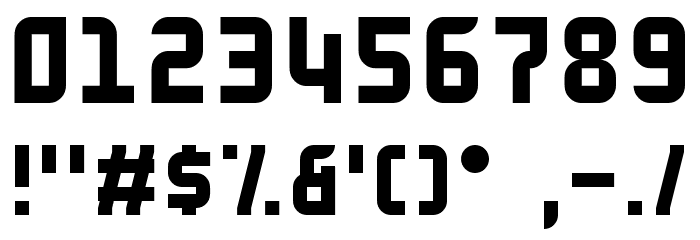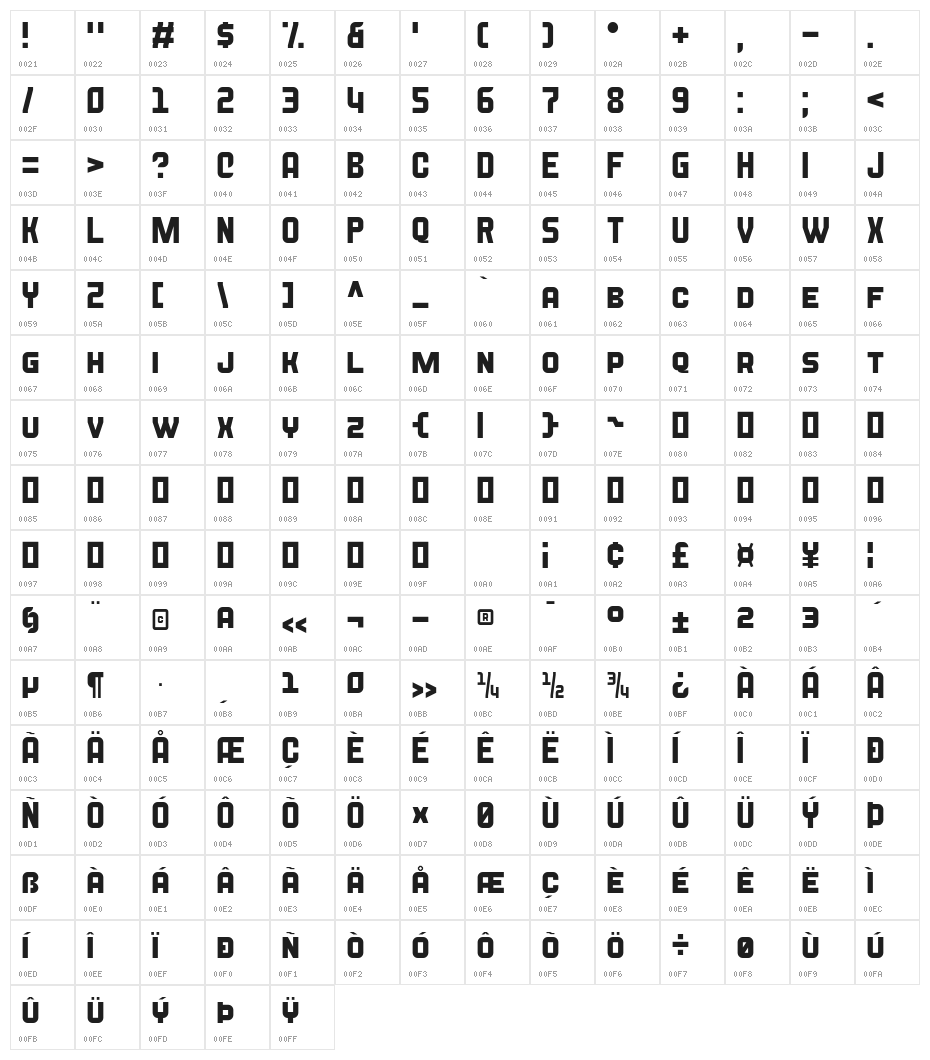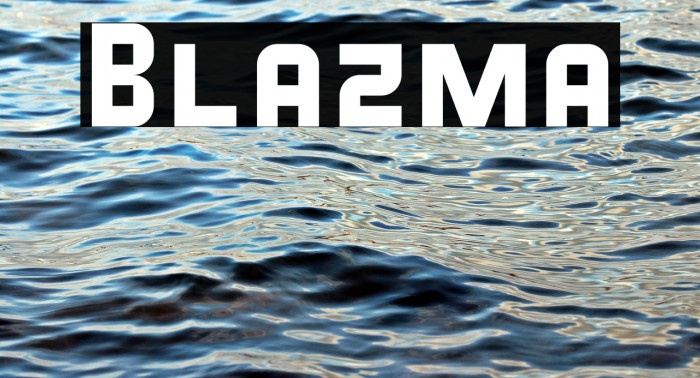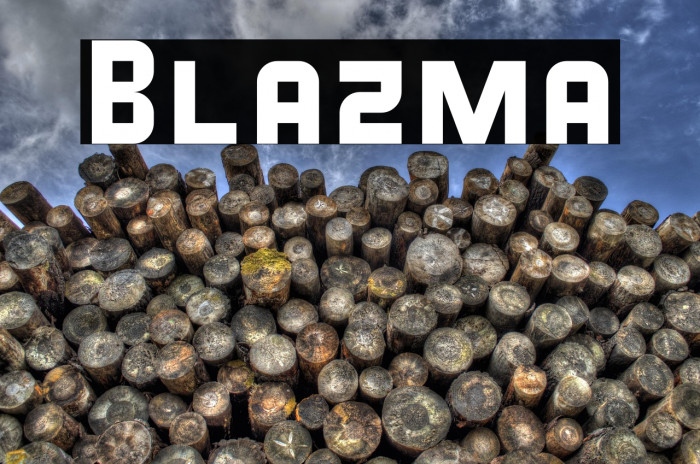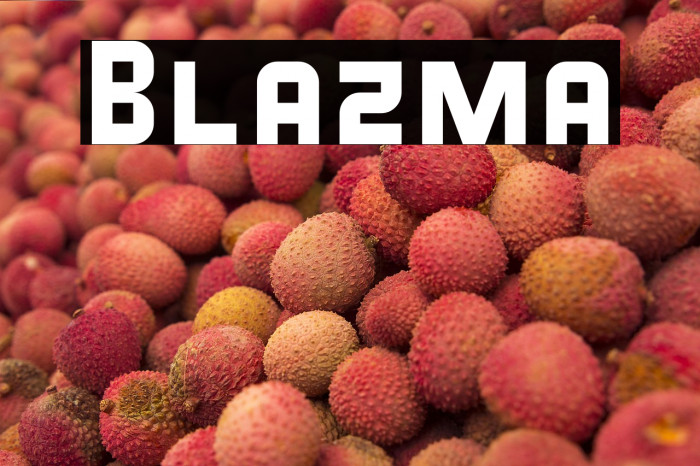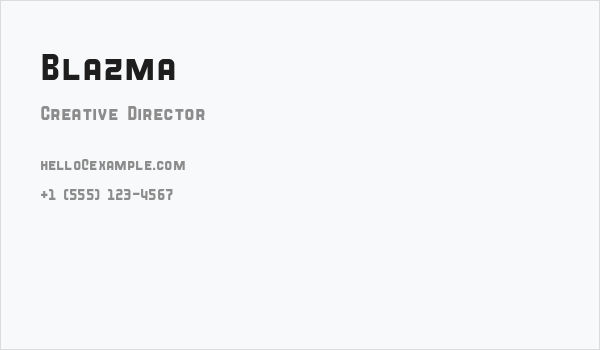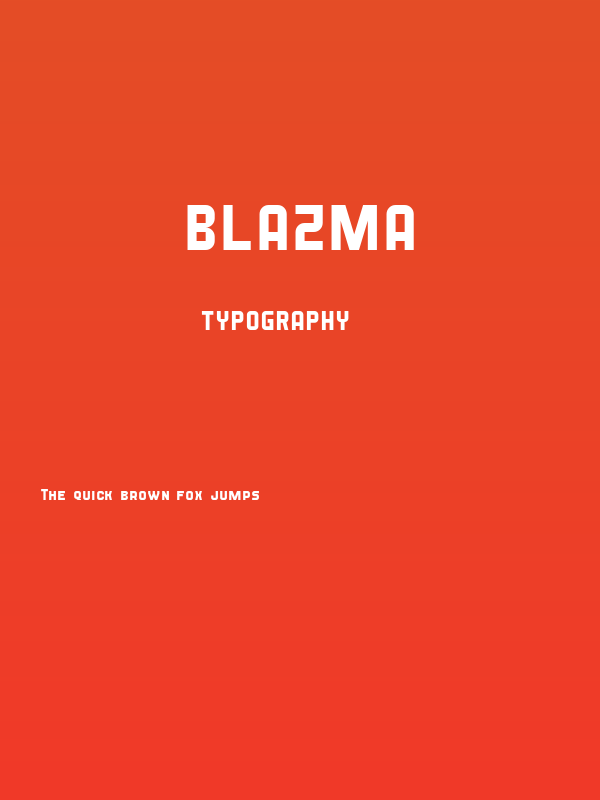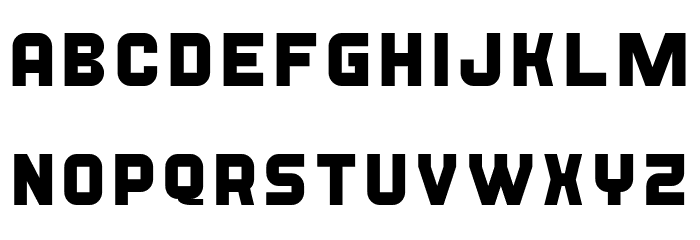
Blazma Font
Blazma Description
This font features a bold and assertive design with a modern, geometric style. The characters are constructed with strong, straight lines and sharp angles, giving it a robust and industrial feel. The uppercase letters are uniform in height, while the lowercase letters maintain a consistent baseline, enhancing readability. The numerals are equally bold, matching the overall aesthetic of the alphabet. Special characters are designed to complement the primary character set, maintaining the same weight and style. The font's solid structure makes it suitable for impactful headlines and attention-grabbing designs.
| Proposed Projects | Ideal for branding, posters, headlines, and any design requiring a strong visual impact. |